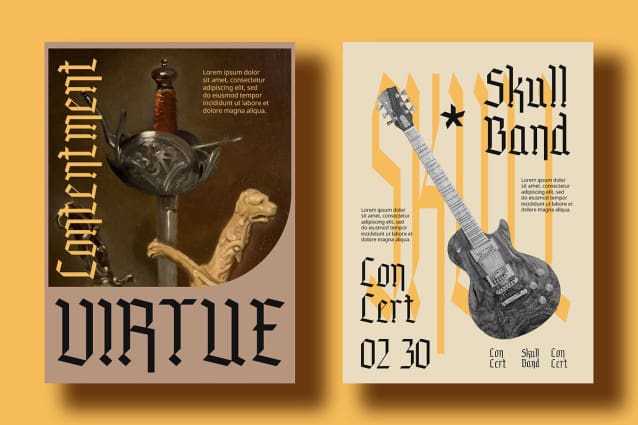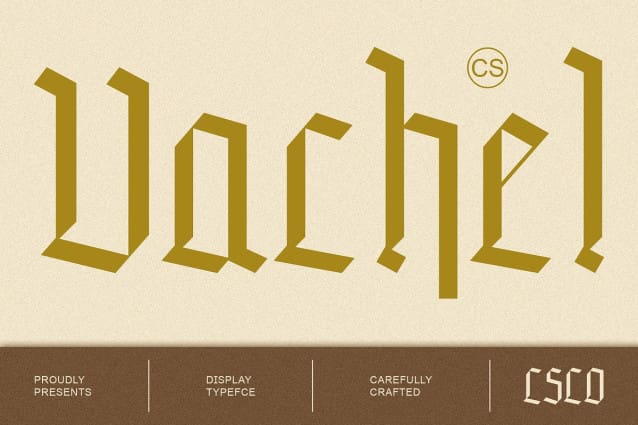
CS Vachel Font
CS Vachel Font is a striking display font embodying the rich and dramatic characteristics of Gothic style. With its sharp lines and intricate ornamental details, this font transports viewers to an era inspired by medieval art and architecture. Each letterform is designed to convey boldness and substance, creating a strong and influential impression in any design.
Rich Design Inspired by History The unique aesthetic of CS Vachel is rooted in its Gothic inspiration, featuring substantial letterforms that evoke a sense of history and tradition. The intricate embellishments and sharp angles not only enhance the visual appeal but also contribute to the font’s powerful presence. This makes CS Vachel an ideal choice for projects that aim to showcase depth and elegance, offering a visual narrative that resonates with audiences.
Versatile Applications for Formality and Artistry This font is exceptionally versatile, suitable for a wide range of applications. It shines in formal contexts, making it perfect for invitations, theater posters, and branding designs that seek to convey a sense of sophistication. Whether used in high-end marketing materials or artistic projects, CS Vachel adds an air of authority and tradition that enriches the overall design.